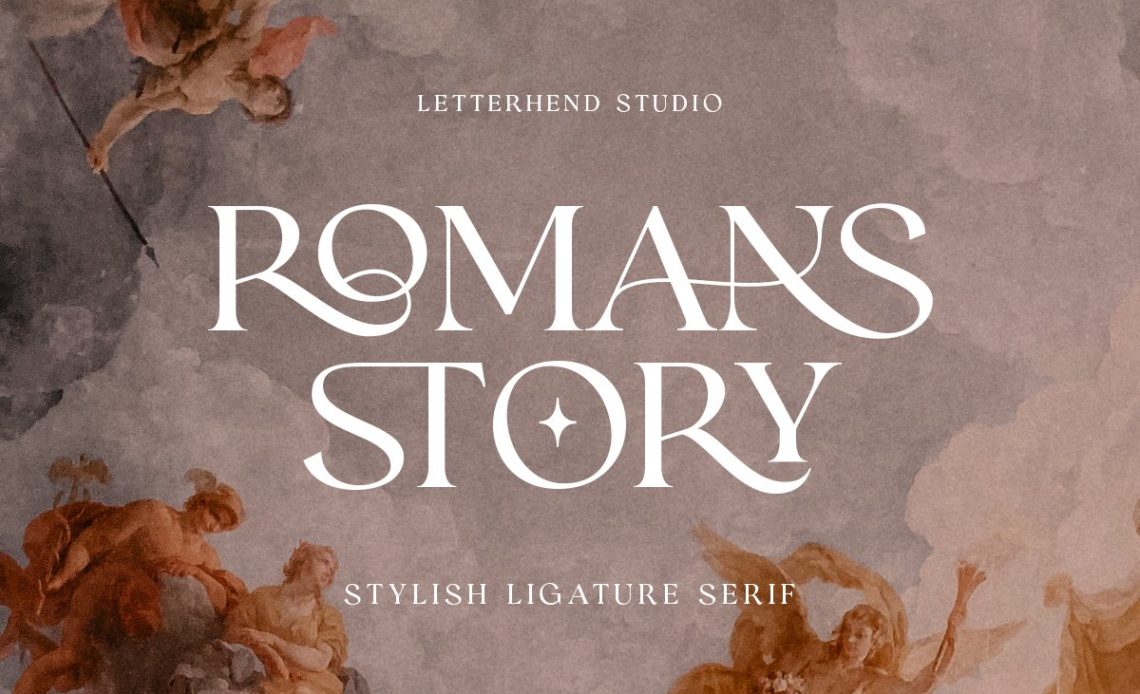
Are you in search of a typeface that exudes luxury and sophistication? Look no further than Romans Story - Ligature Serif Font! Created by Hendry Juanda, this typeface has been carefully crafted to ensure its premium quality and unique style.
Romans Story features ligatures, making it stand out from regular serif fonts. It's perfect for logos, headlines, titles, and other formal forms such as invitations, labels, magazines, books, greeting/wedding cards, packaging, fashion, makeup, stationery, novels, labels, or any type of advertising purpose.
This sophisticated font is a must-have for any designer who wants to take their creative projects to the next level. Whether you're designing for personal or commercial use, Romans Story will add a touch of elegance and refinement to any project.